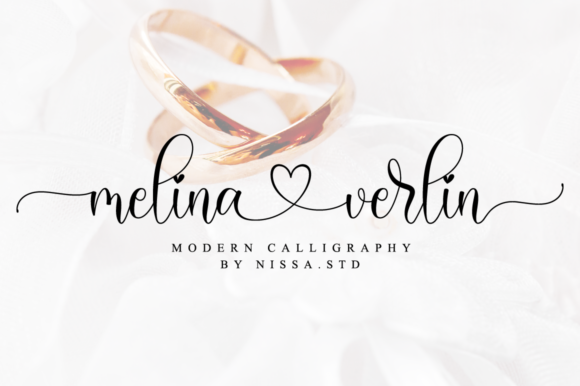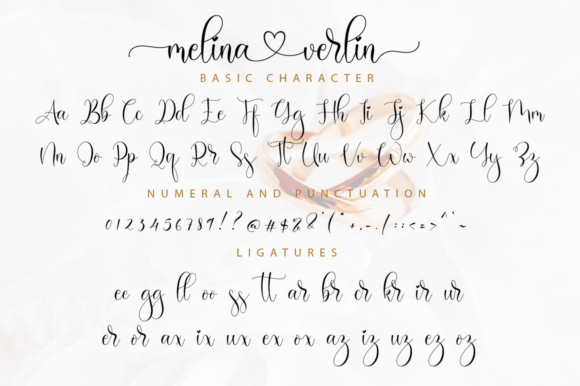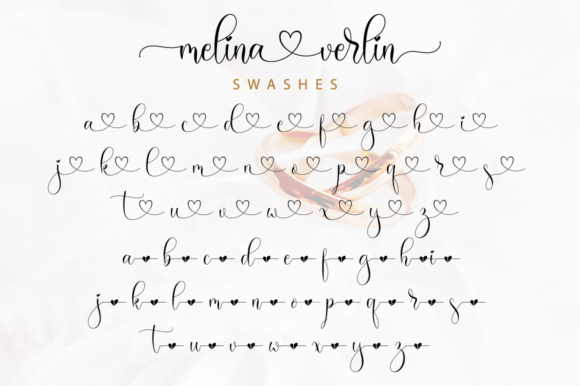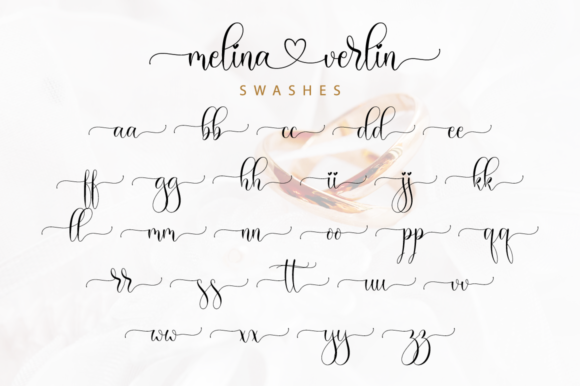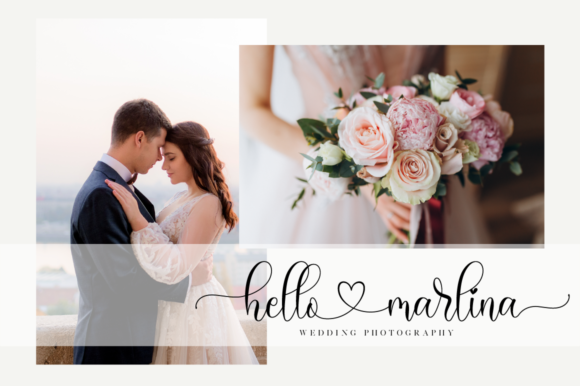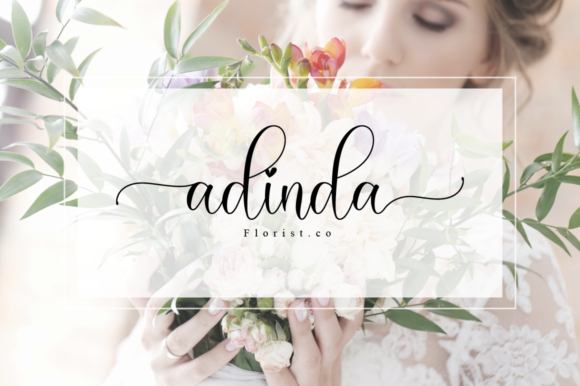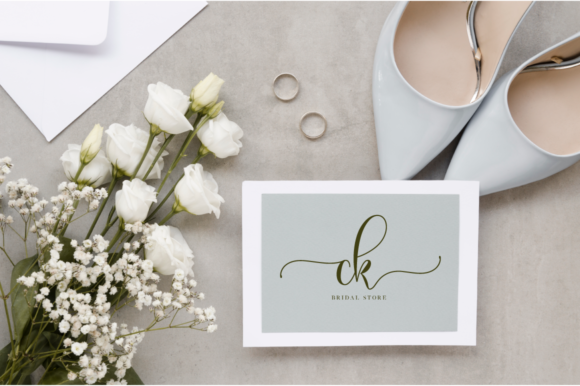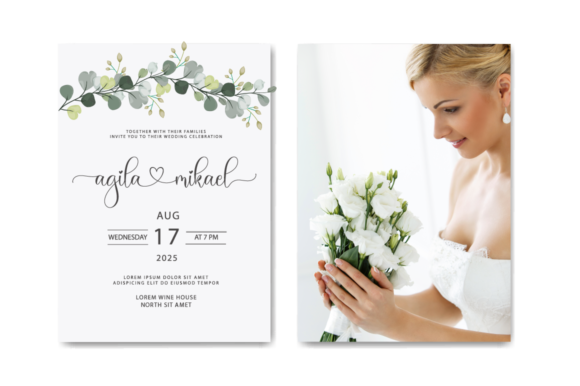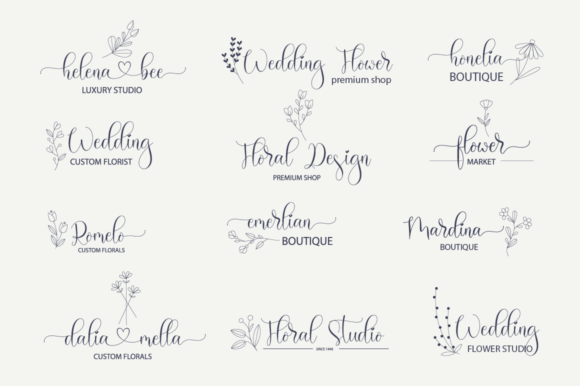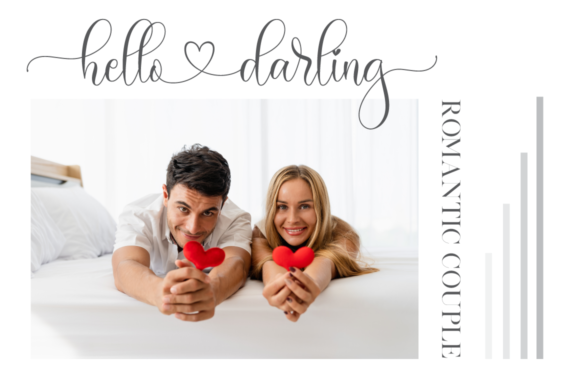
Melina Verlin Font
About Melina Verlin Font
Melina Verlin is a beautiful combination of timeless elegance and authentic calligraphy. It features an incredibly classic style, while still keeping a friendly feel. Melina Verlin is the perfect font for making original and outstanding designs for wedding invitations, beautiful stationary art, eye-catching social media posts, and cute greeting cards.